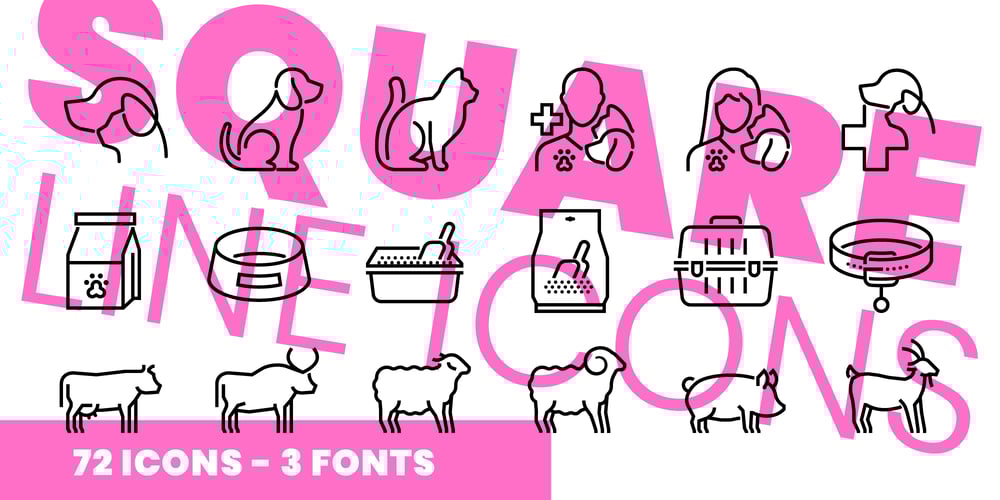
Square Line Icons Animals Font Family was designed by Ozalp Furkan Eroz and published by Howcolour. Square Line Icons Animals contains 3 styles and family package options. The square icons focus on maximizing the meaning by minimizing the symbols. Let your viewers understand your data without disorientation. Use a metaphorical icon library, designed for fast, intuitive human recognition.All square icons crafted with precision and eye for quality with 32×32 grid system. The metaphors and the compositions designed with pieces from everyday life and popular culture, thus your viewers will never get lost and enjoy a unique and simplified visual style.